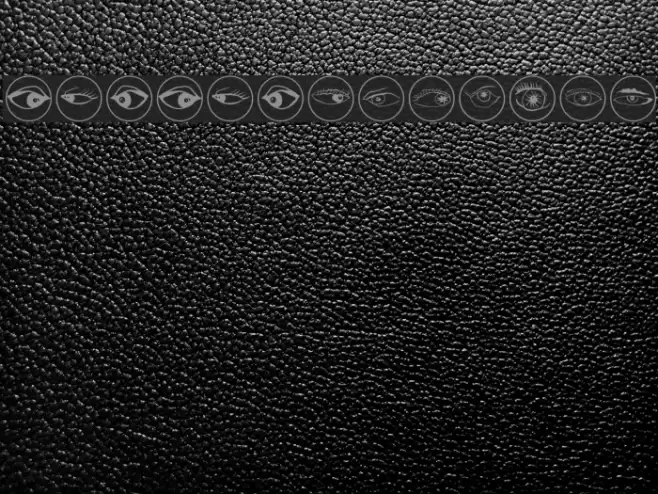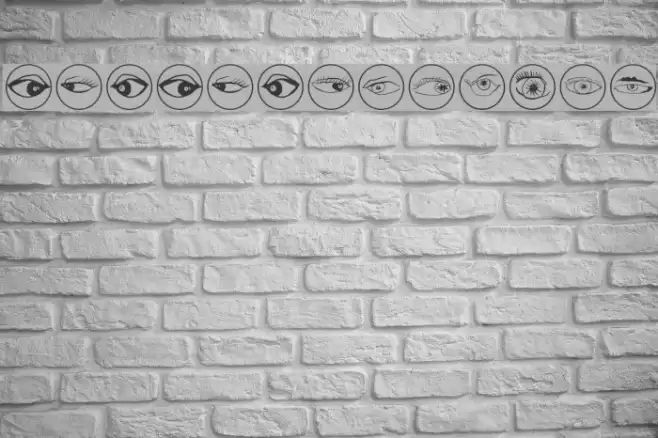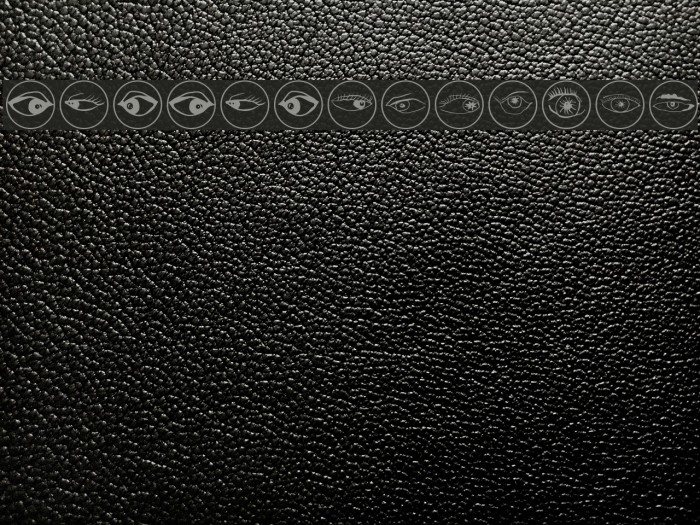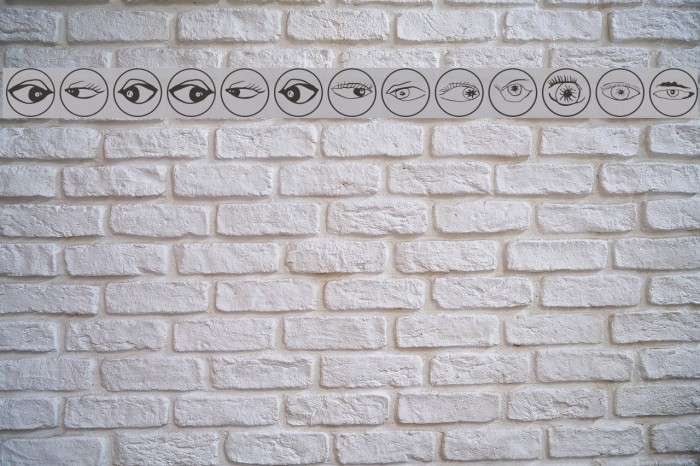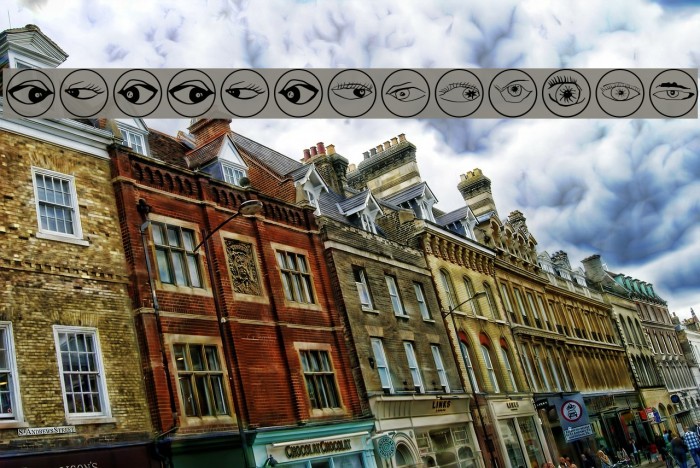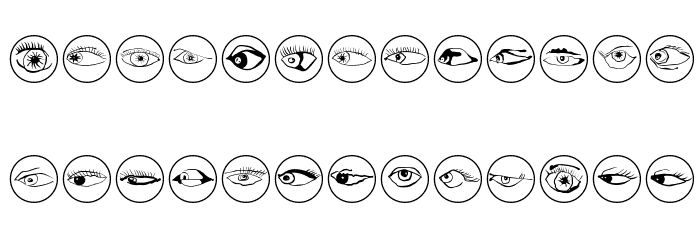
EyeEyeOnBlack Font
EyeEyeOnBlack Description
A highly decorative and illustrative font where each character is represented by a unique stylized eye design enclosed in a circle, with significant variation in line thickness, detail, and artistic expression across glyphs.
Whimsical, eye-themed decorative font with each letter as a distinct illustrated eye from Uncategorized fonts.
- Proposed Projects: Posters, album covers, branding for creative industries, art installations, editorial headlines, themed events.
- Overall Style: Decorative, Whimsical, Artistic
- Use Case: Logos, Headlines, Posters, Artistic projects